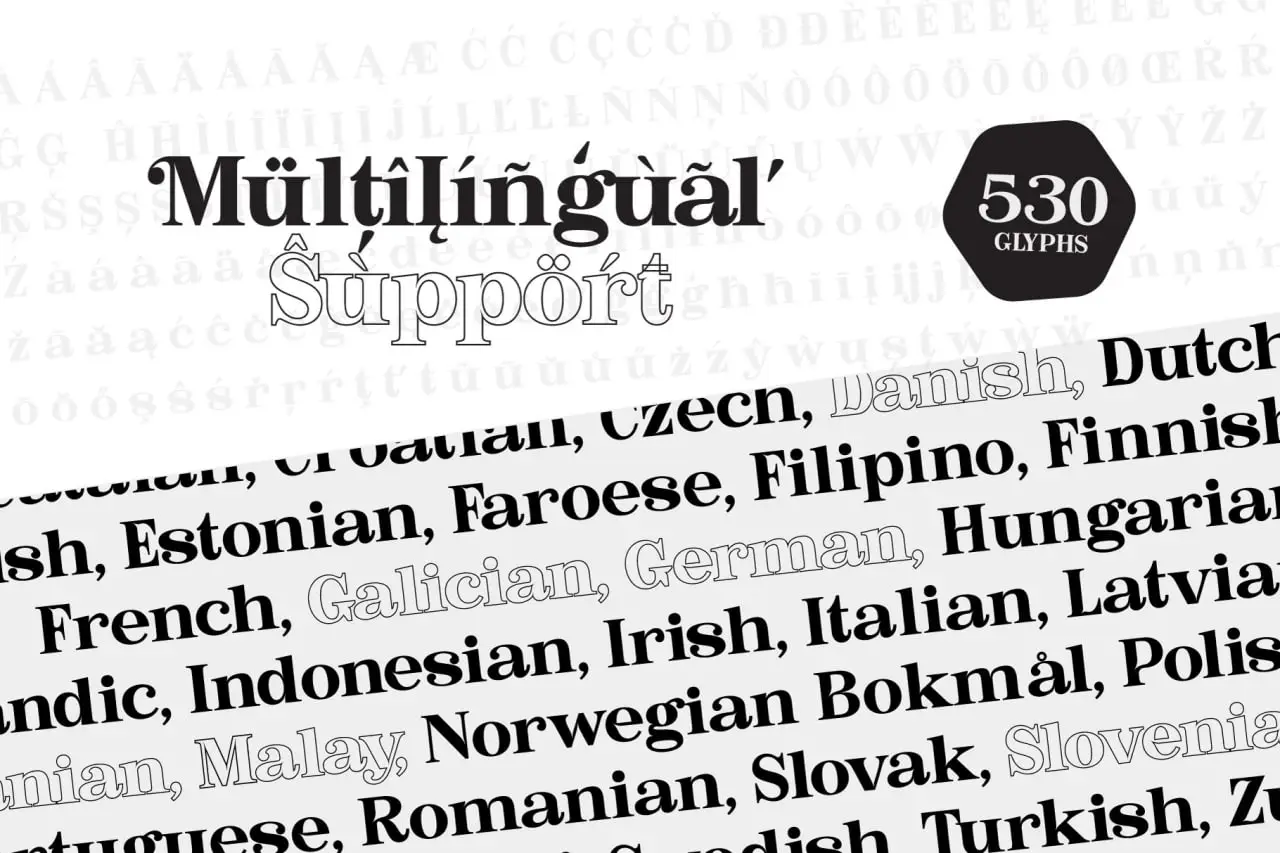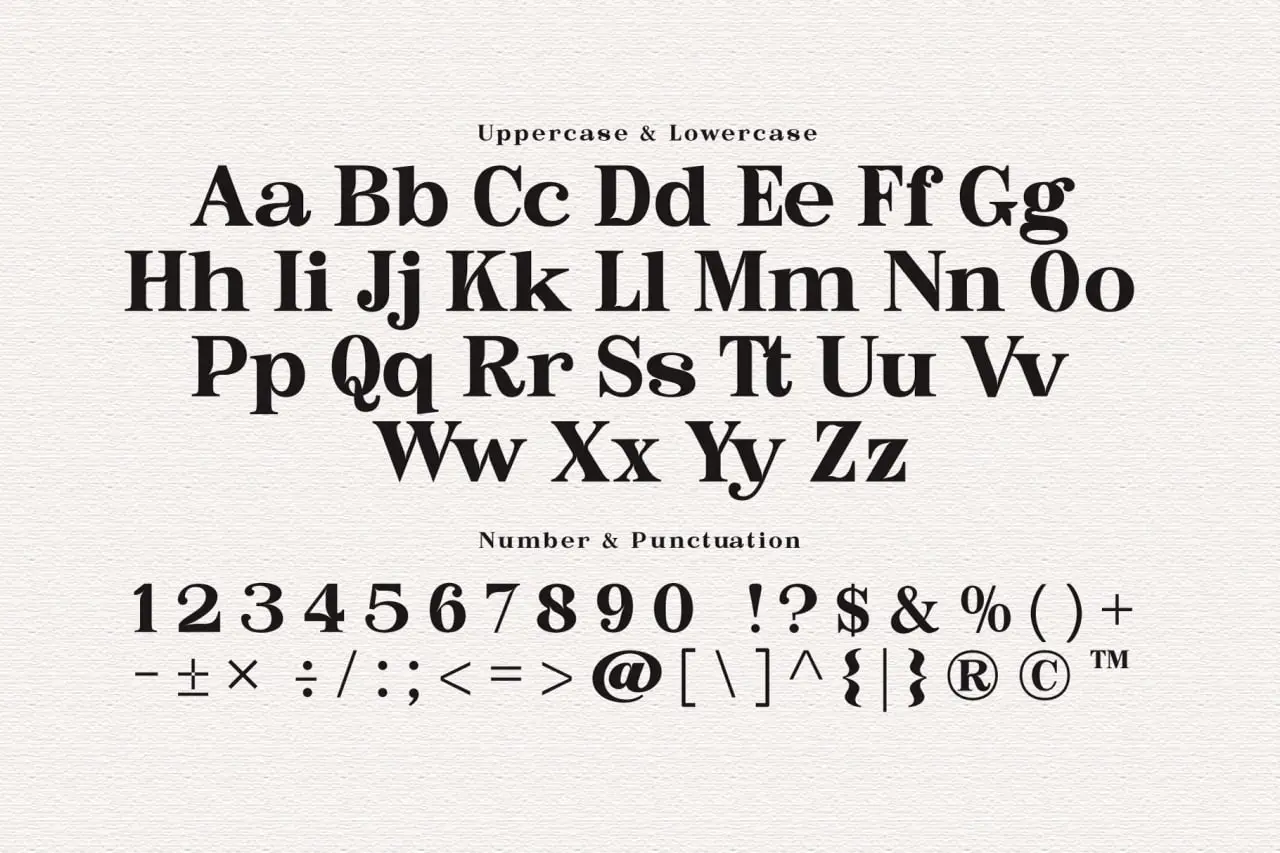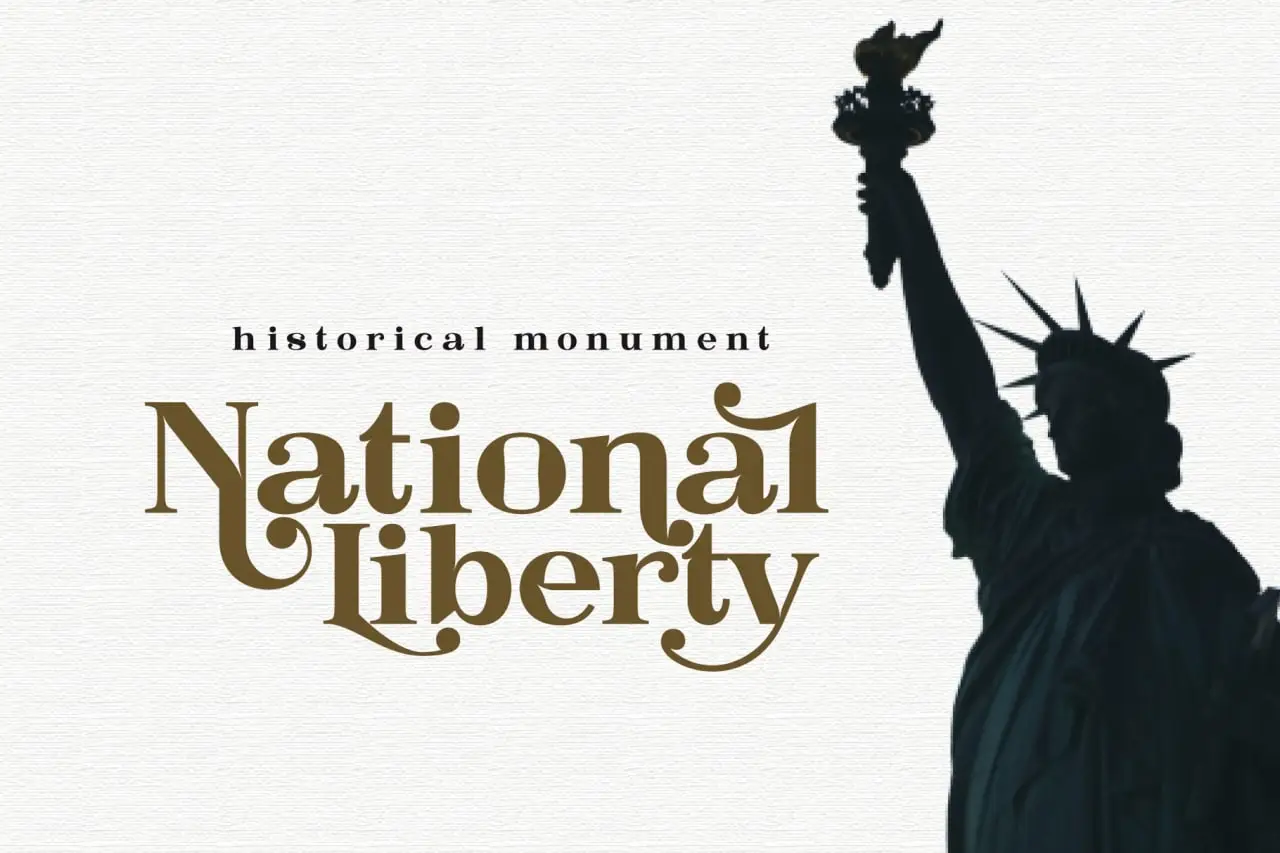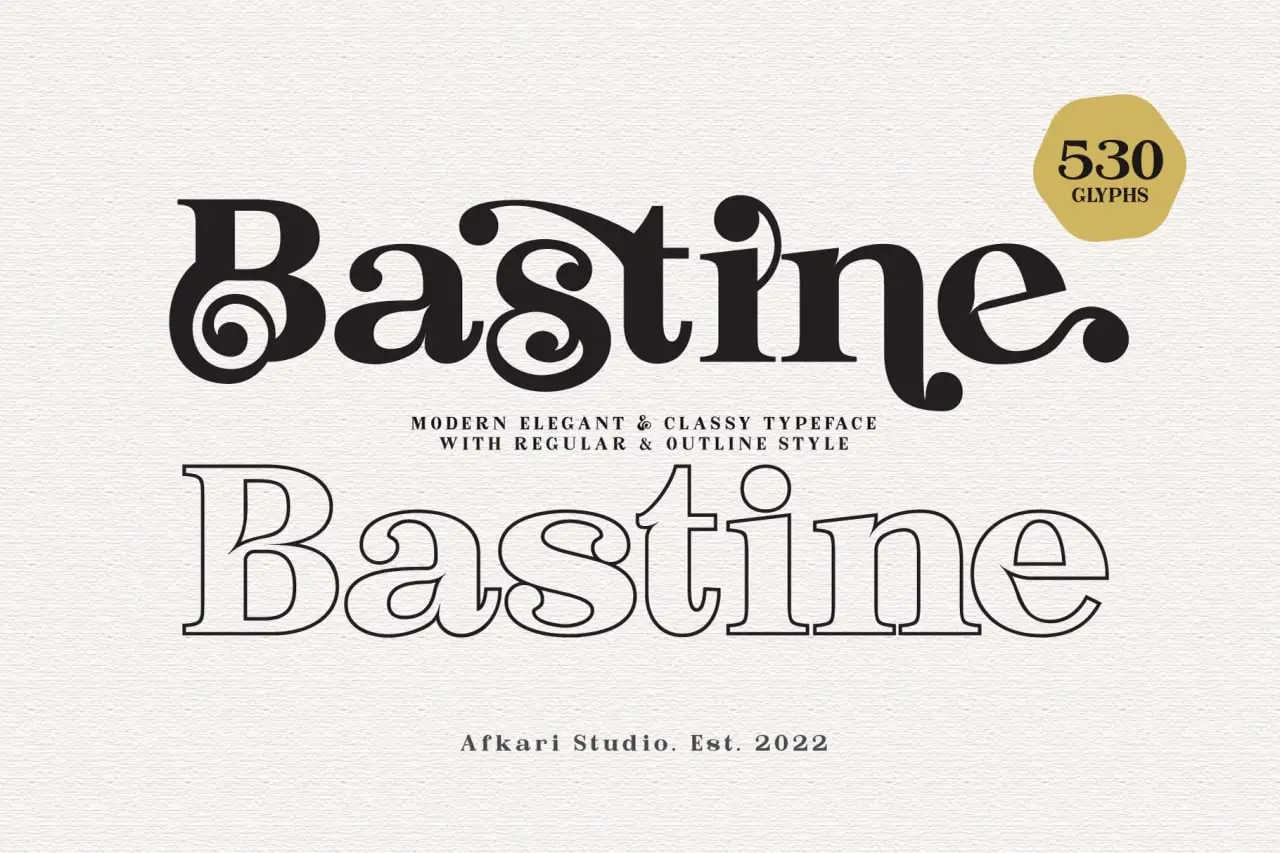
Bastine-Modern Classy Serif Font
The Bastine Modern Classy Serif Font is a sophisticated typeface that combines elegance with contemporary design. Perfect for a variety of applications, this font is ideal for branding, logos, web design, print materials, and user interfaces.
• Stylish serif design with modern aesthetics
• Clear legibility for both digital and print use
• Supports a wide range of languages
• Ideal for creating elegant branding and marketing materials
• Use in web design for a classy touch
• Perfect for editorial layouts and book covers